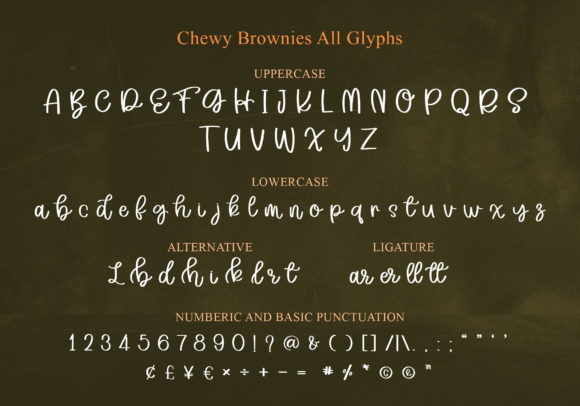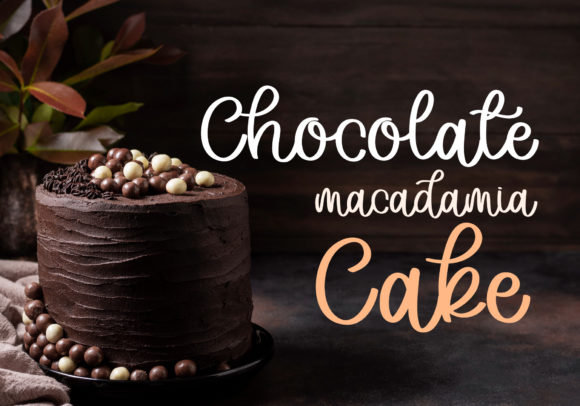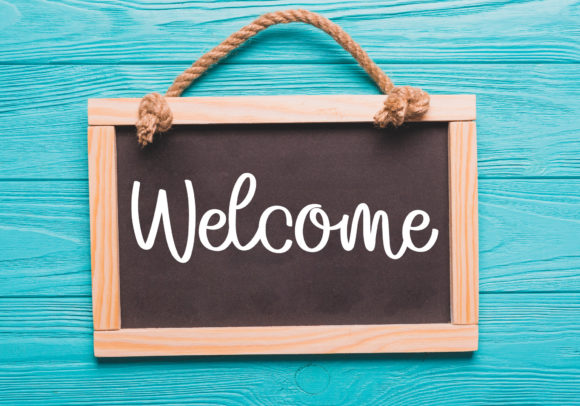
Introduction to Chewy Brownies Font
Have you ever been working on a creative project and suddenly felt the urge to add a personal touch that makes it truly special? For many designers, that moment of inspiration comes when they stumble upon the perfect font to bring their idea to life. For us, that moment often arrives when we discover a font as charming and versatile as the Chewy Brownies Font.
With its warm, romantic, and jolly vibe, the Chewy Brownies Font is an all-around winner that’s sure to elevate any design project. Whether you’re working on a free download or a high-quality print, this font is the perfect companion to help you create something truly unique. And the best part? It’s available for free download, making it an invaluable resource for designers of all levels.
- High-quality design: This font is perfect for creative projects that require a unique and eye-catching look.
- Large character set: Includes a wide range of characters, including uppercase and lowercase letters, numbers, and punctuation marks.
- Perfect for food and drink designs: The Chewy Brownies Font is ideal for creating eye-catching designs for food and drink products, packaging, and advertising.
Honest Review: Chewy Brownies Font
I recently had the chance to work with the Chewy Brownies Font, and I must say it’s been a game-changer for my creative project. As a designer, I’m always on the lookout for high-quality fonts that can elevate my designs, and this one certainly delivers. The font is a free download, which is a huge plus, and it’s perfect for anyone working on a design project on a budget.
The font has a transparent background, making it easy to overlay on top of images or other design elements. This is a big advantage for me, as it allows me to create a cohesive look without having to worry about messy backgrounds.
Here are some things that work well with the Chewy Brownies Font:
- High-quality design: The font is crisp and clear, making it perfect for a variety of design projects.
- Transparent background: This feature makes it easy to work with the font and overlay it on top of other design elements.
My only limitation with the font is that it’s not available in as many weights as I would like. ⚠️ This can be a problem if you’re trying to create a cohesive look across multiple design elements.
Overall, I’m really impressed with the Chewy Brownies Font. It’s a great addition to any designer’s toolkit, and I highly recommend it for any creative project. ✨
Chewy Brownies Font is perfect for various creative projects, including food blogs, recipes, and social media graphics. Its free download feature makes it an ideal design resource for those on a budget. The transparent background option allows for seamless integration with other design elements.